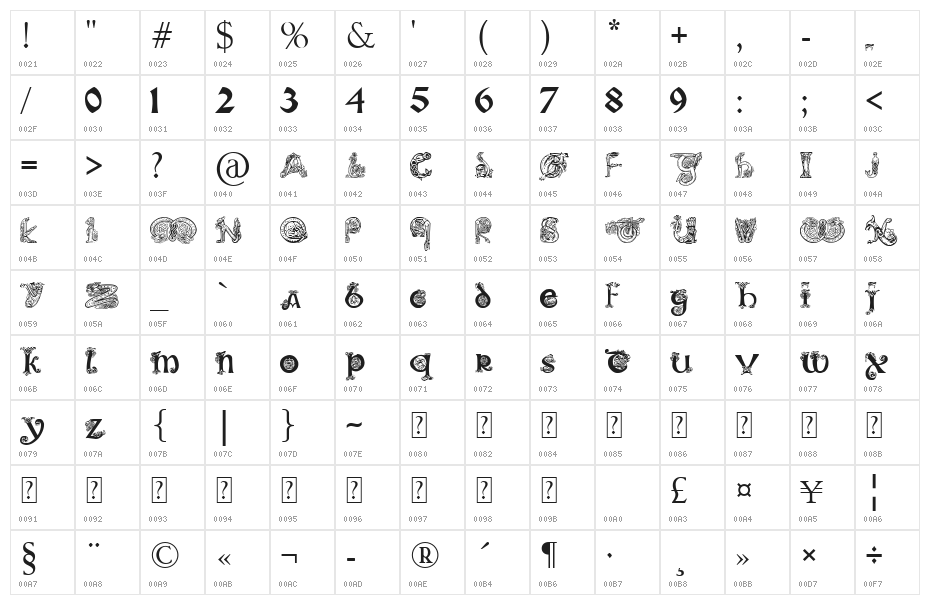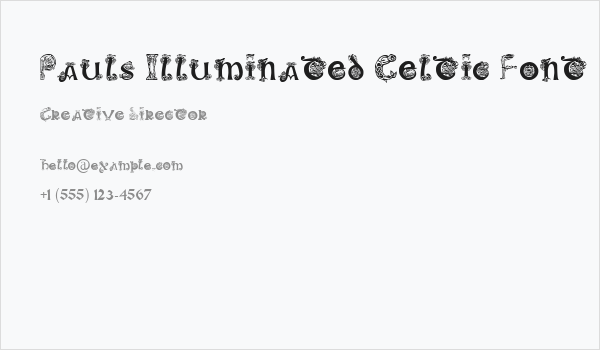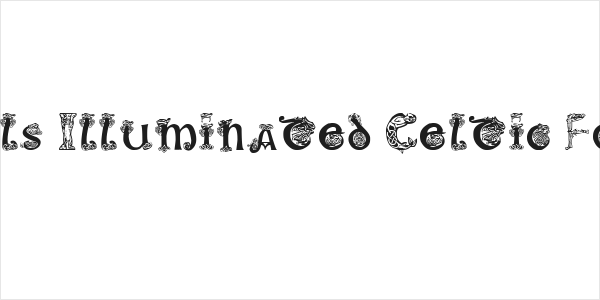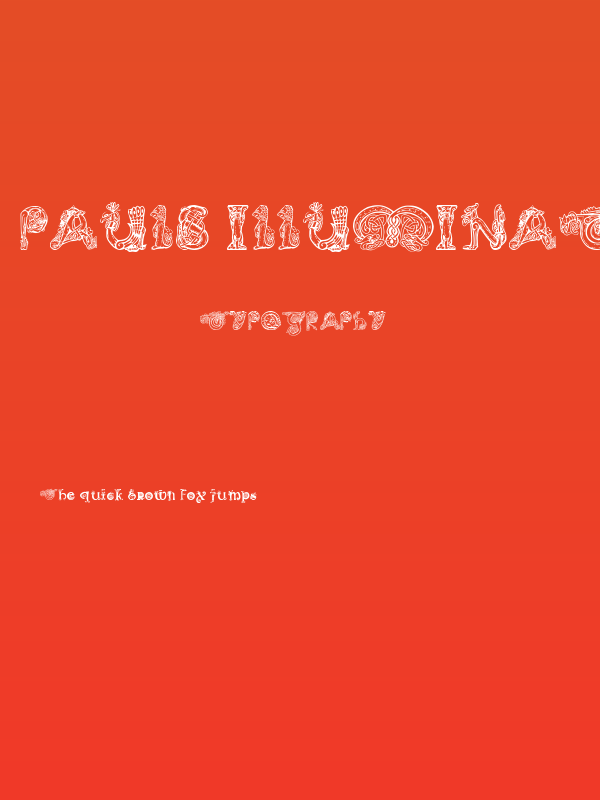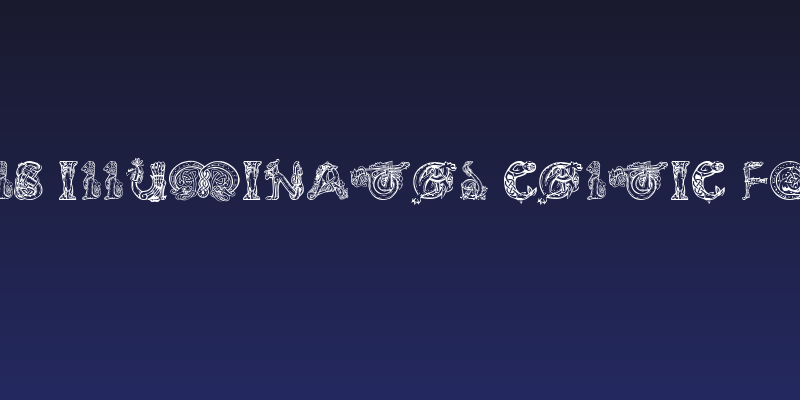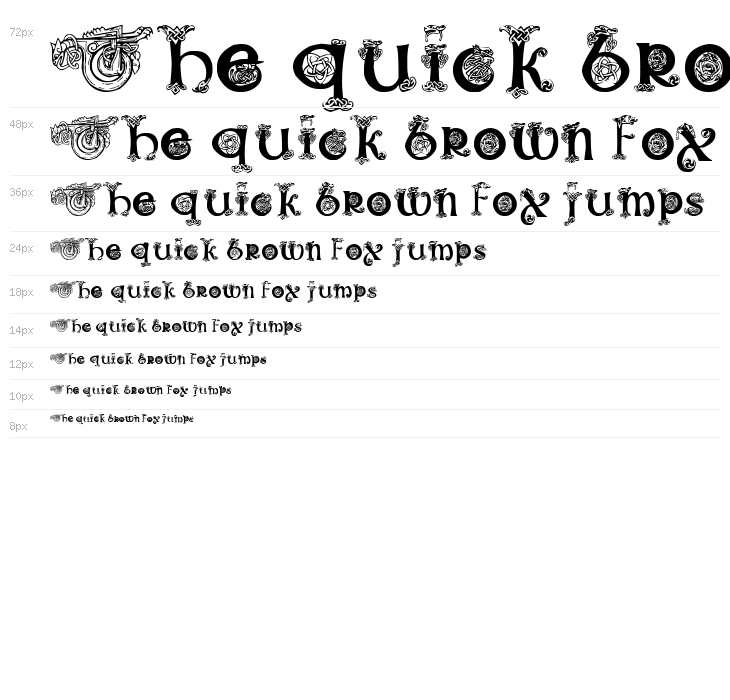
Pauls Illuminated Celtic Font Font
Pauls Illuminated Celtic Font Description
This font is a decorative typeface inspired by Celtic art, featuring intricate and ornate designs within each character. The uppercase letters are particularly elaborate, with intertwining patterns and flourishes that evoke the style of illuminated manuscripts. The lowercase letters maintain a similar aesthetic but with slightly less complexity, ensuring readability while preserving the decorative theme. The numerals and special characters are bold and consistent with the overall style, making them suitable for thematic projects. This font is ideal for creating a historical or mystical atmosphere, perfect for use in themed events, fantasy book covers, or artistic projects that require a touch of ancient elegance.
Use CaseLogos, Headlines, Artistic projects
Proposed ProjectsIdeal for fantasy book covers, themed events, artistic projects, and historical recreations.